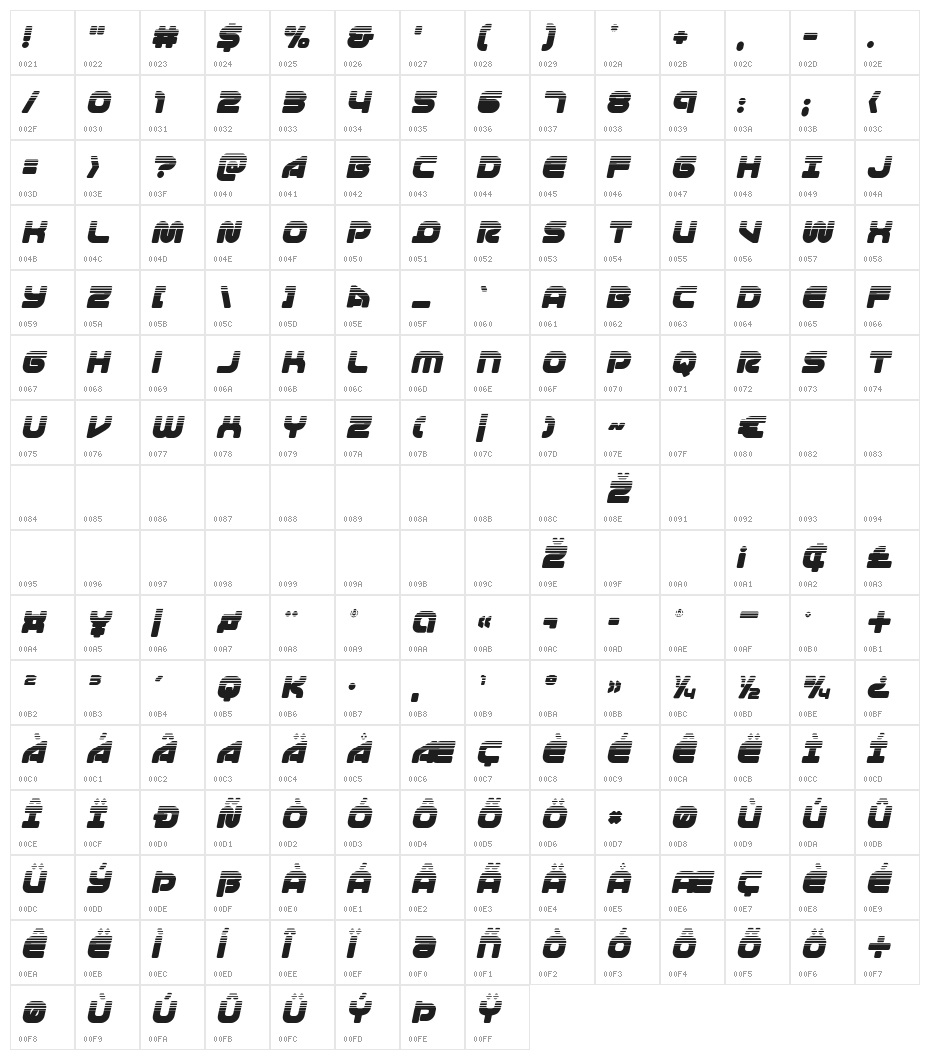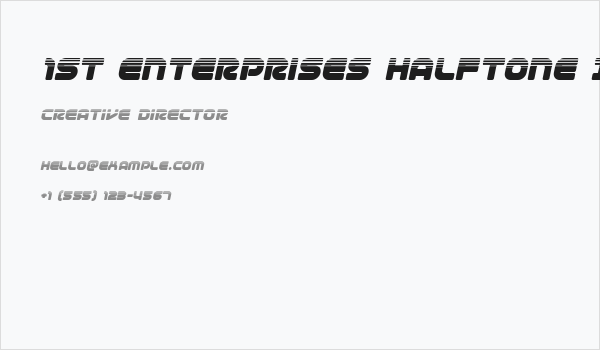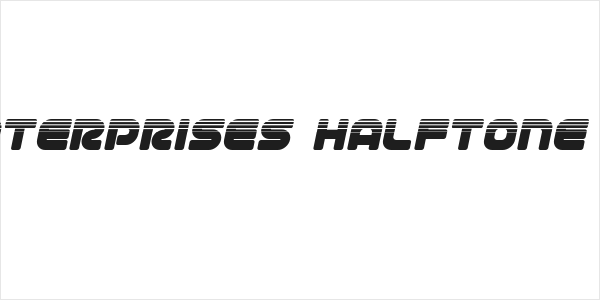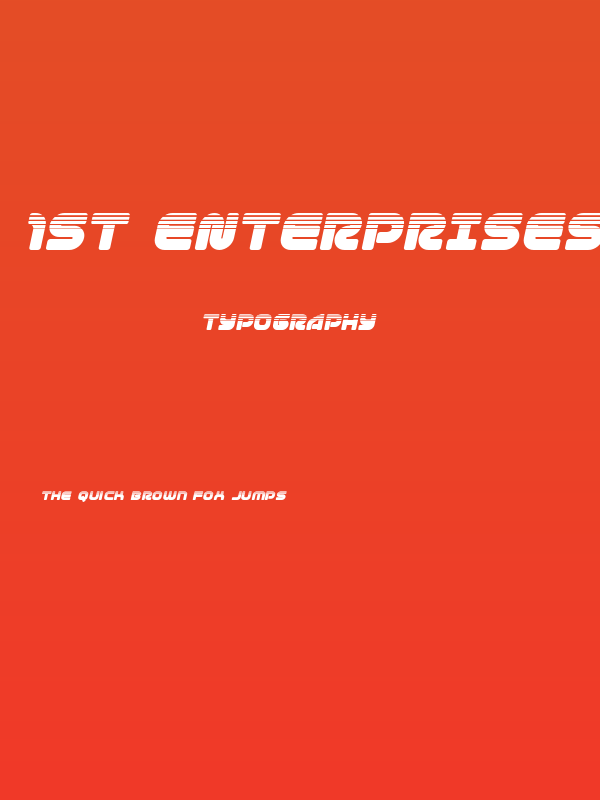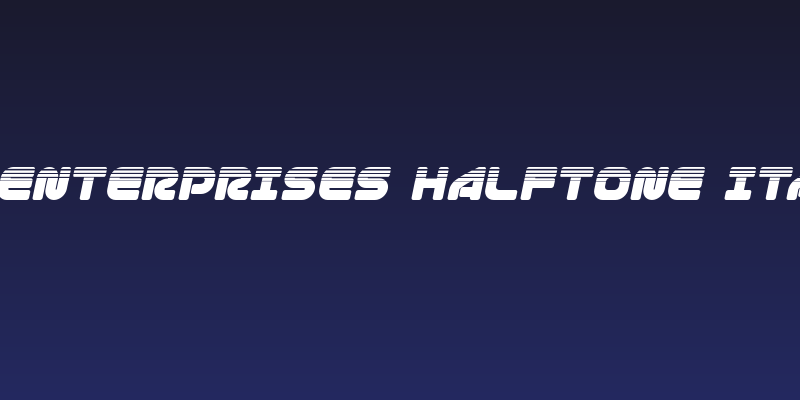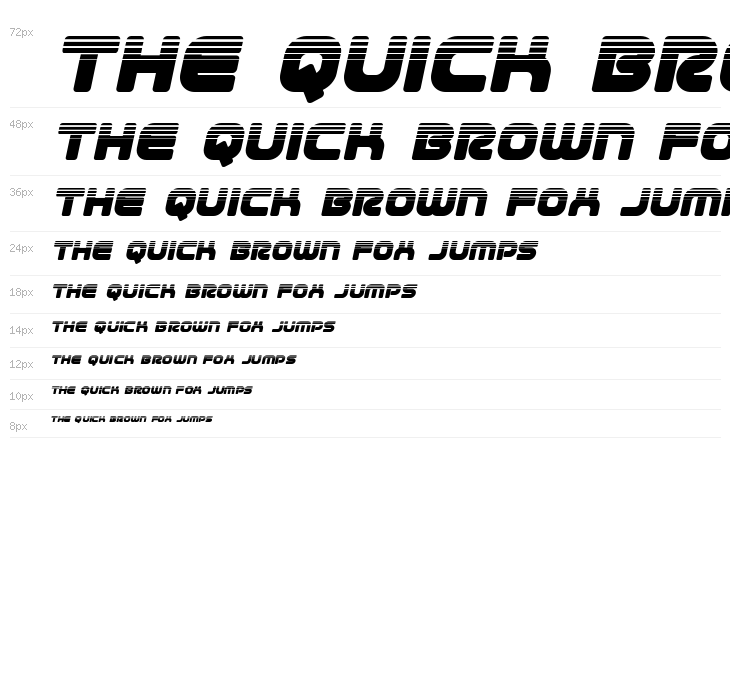
1st Enterprises Halftone Italic Font
1st Enterprises Halftone Italic Description
This font features a bold, futuristic design with a halftone effect that gives it a unique, dynamic appearance. The characters are italicized, adding a sense of motion and speed. Each letter and number is composed of solid black segments interspersed with white space, creating a striped pattern that enhances its modern aesthetic. The uppercase and lowercase letters maintain a consistent style, with rounded edges and a slightly condensed form. The numerals and special characters follow the same design principles, ensuring uniformity across all glyphs. This font is ideal for projects that require a bold, eye-catching typeface with a contemporary feel.
| Proposed Projects | Ideal for branding, posters, sports team logos, and any project needing a modern, energetic typeface. |